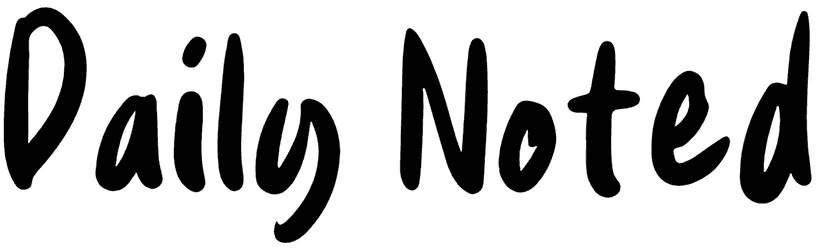
Daily Noted Font
It would be thriving and boosting if, in your forthcoming design, you try a sweet personal manuscript to improve your imagination. Hence, Daily Noted, as a comic font with curly inky lettering in full characters, arises…
It would be thriving and boosting if, in your forthcoming design, you try a sweet personal manuscript to improve your imagination. Hence, Daily Noted, as a comic font with curly inky lettering in full characters, arises for free.
This handwritten font can be applauded for its lovable tune and put into any covers, greeting cards, quotes, invitations, and more. If you adore this kind of scenario, set this masterpiece in your schemes and achieve the desired results.